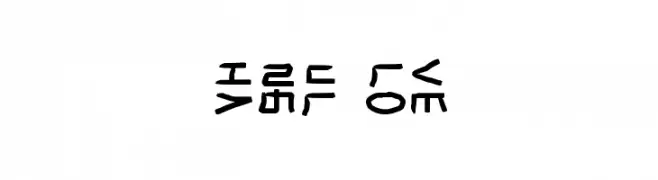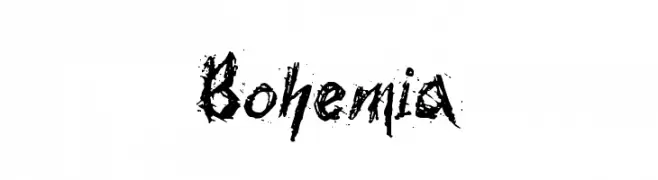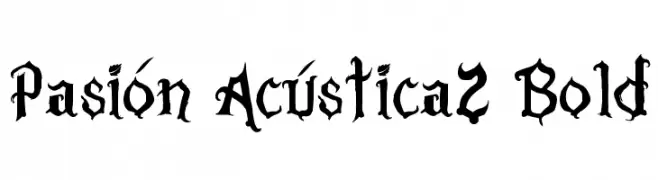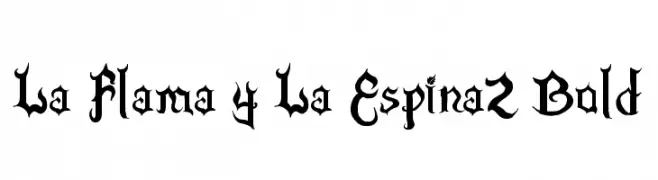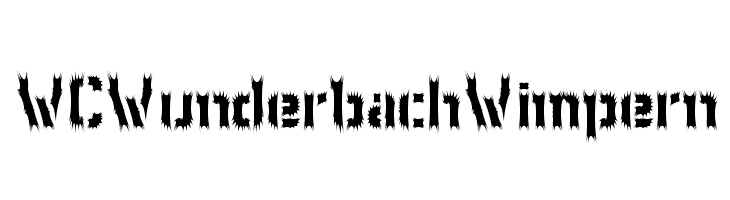
A modern, geometric font with bold, angular characters.
A bold, geometric font with an abstract, futuristic style.
A distressed, grungy font with a raw, hand-drawn aesthetic.
A bold, gothic-style font with intricate, angular detailing.
An edgy, thorn-inspired font with intricate, jagged details.
A bold, high-contrast serif font with dramatic strokes and classic elegance.
A classic serif font with elegant, elongated strokes and a sophisticated appearance.
A bold blackletter font with intricate, angular letterforms and a historic feel.
A whimsical, artistic font with flowing, cursive-like strokes and playful loops.
A bold, gothic blackletter font with intricate, decorative details.